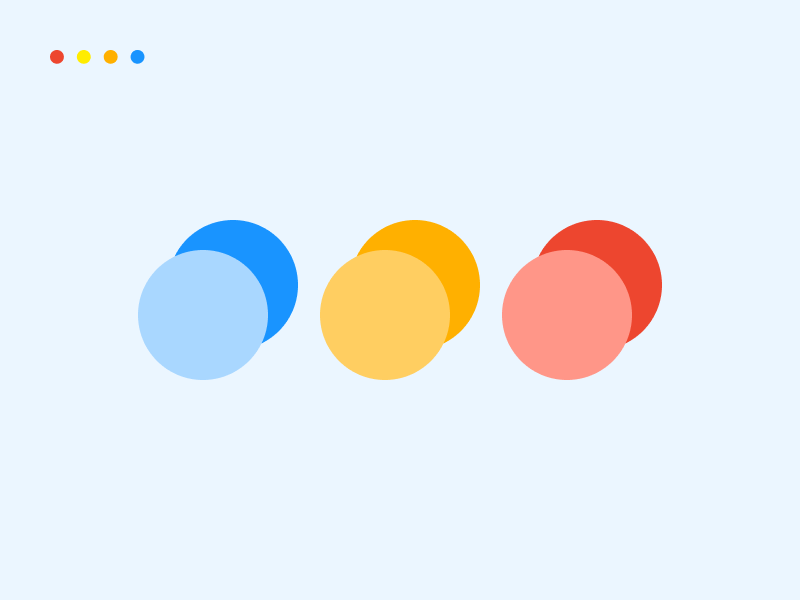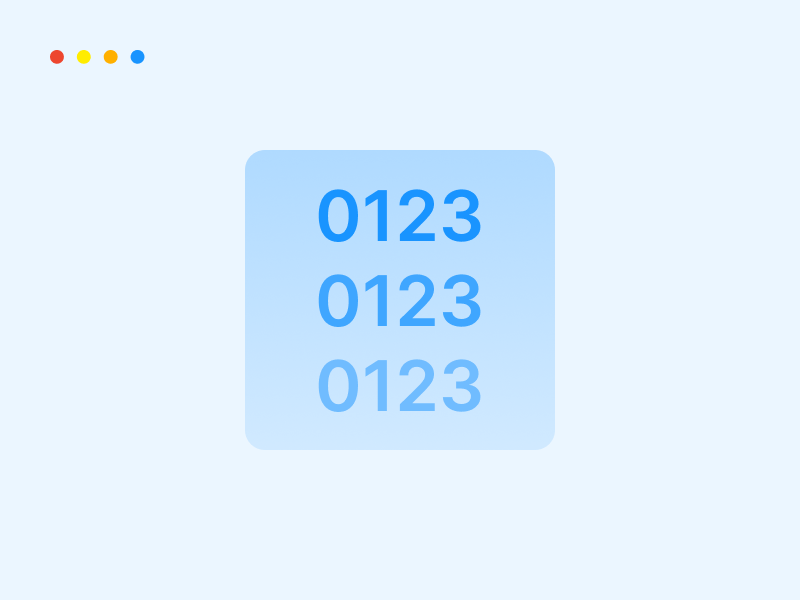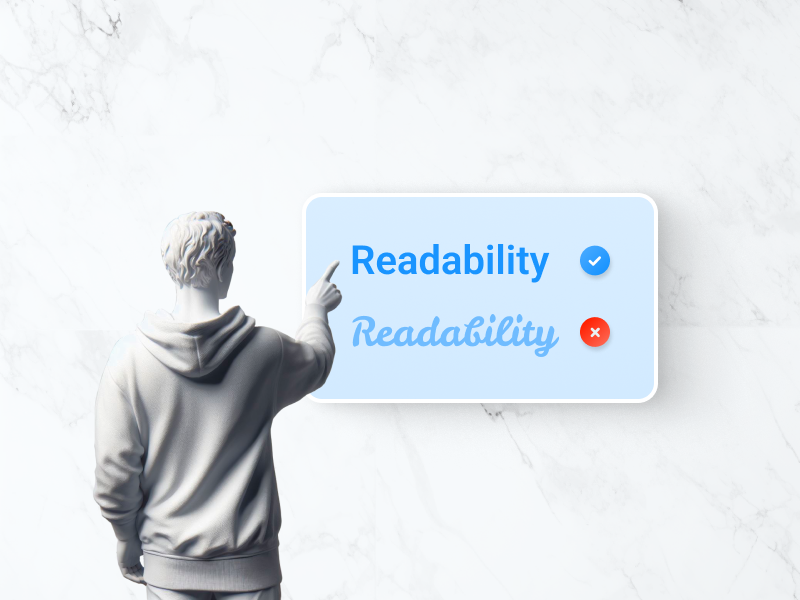
Does your website font communicate your business’s core values? If the answer is “no” or “not sure,” then it’s time to seek better financial fonts.
Typography significantly impacts your audience’s perception of your brand, making your firm seem trustworthy and reliable when chosen right and unprofessional and outdated when left to chance.
Fonts are one of the most powerful elements in website design. It allows you to showcase your brand’s personality and foster connections with potential clients.
But with hundreds of font variants available, which one should you choose? Is there a method to select fonts for financial services?
I asked myself those questions, too, some time ago. Today, after working on over 500 sites at my web design agency, I’m glad to say I found the answers, and I want to share them with you. In this article, I’ll explain 8 ways to ensure you are choosing a font that reflects transparency and safety, encouraging web visitors to inquire more about your business.
Your branding strategy encompasses different elements that represent your company’s values, message, services, and personality. When crafted successfully, those elements are immediately associated with your business by clients, leads, associates, and peers whenever they encounter them. Typography is one of those elements.
Financial services take seriously the fonts they use on their logos and business cards; the same rule applies to website typography. Even if typography only makes up for a tenth of your financial web design, it still can significantly impact brand perception.
Understanding the importance of typography in web design is crucial for building a solid digital branding. The fonts you choose for your web pages say a lot about your business, and you want them to communicate reliability and professionalism—besides your brand’s identity and core values.
When choosing the typography for finance websites and fintech apps, you want to go with one that creates a sense of trust and reliability. For that, there are several factors that come into play. As a digital marketing agency owner, I recommend you you consider these factors when selecting financial fonts:
While you want your brand to come across as modern, taking experimentation too far can be counterproductive. Remember that when it comes to financial services, customers are looking for safety and transparency; you must opt for fonts that align with those values.
In this case, more is less is a good rule of thumb. When searching for the right fonts, aim for the ones that inspire these feelings:
This means there is little room for innovative fonts, futuristic typography, retro typefaces, overly decorative fonts, and so on.
Typography has the power to significantly improve user experience. Your fonts affect how users process your content and receive the message. Prioritizing readability is important for any business, but it becomes even more crucial if you offer financial services.
What makes readability so essential? Customers seek brands that can simplify their complex financial planning. When deciding who will manage their finances, they prioritize relevant, error-free, easy-to-read content. Good readability makes the content easy to understand, which increases trust in the message.
In other words, clear communication promotes trust. Trust contributes to a financial firm’s reputation. A trustworthy reputation makes clients want to hire your services, making it one of your biggest assets.
For financial institution website design, I typically stick to simple, clean, and professional fonts, such as Sans Serif Fonts, Playfair Display, and Roboto. I choose colors that promote high legibility and adjust font sizes for optimal readability on both desktop and mobile devices.
When selecting your fonts, don’t do it only based on how good they look. Make sure they also complement your unique fintech company requirements and goals. Let’s have a look at the different finance niche spheres to consider when choosing typography.
Readability is as important for numbers as it is for characters, especially for financial sites. A font type that uses unrecognizable versions of number and currency symbols can cause comprehension issues and slow things down for your users.
You also have to contemplate how those special characters line up in the user interface. For example, if you plan to add budgeting plans to your app, many of the pages will contain lines of budget data. If the font you chose doesn’t feature monospaced numbers, budget data won’t line up at the decimals, creating a poor experience for your end users.
While you want to use a minimal number of fonts on your website or app, financial projects may require you to add an extra font solely for numbers and special characters.